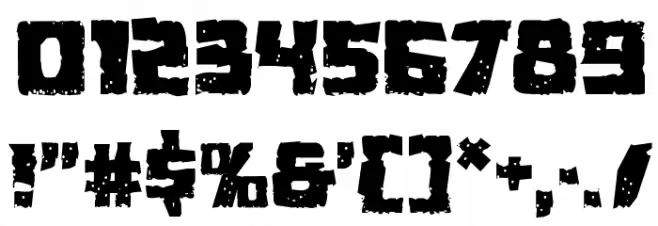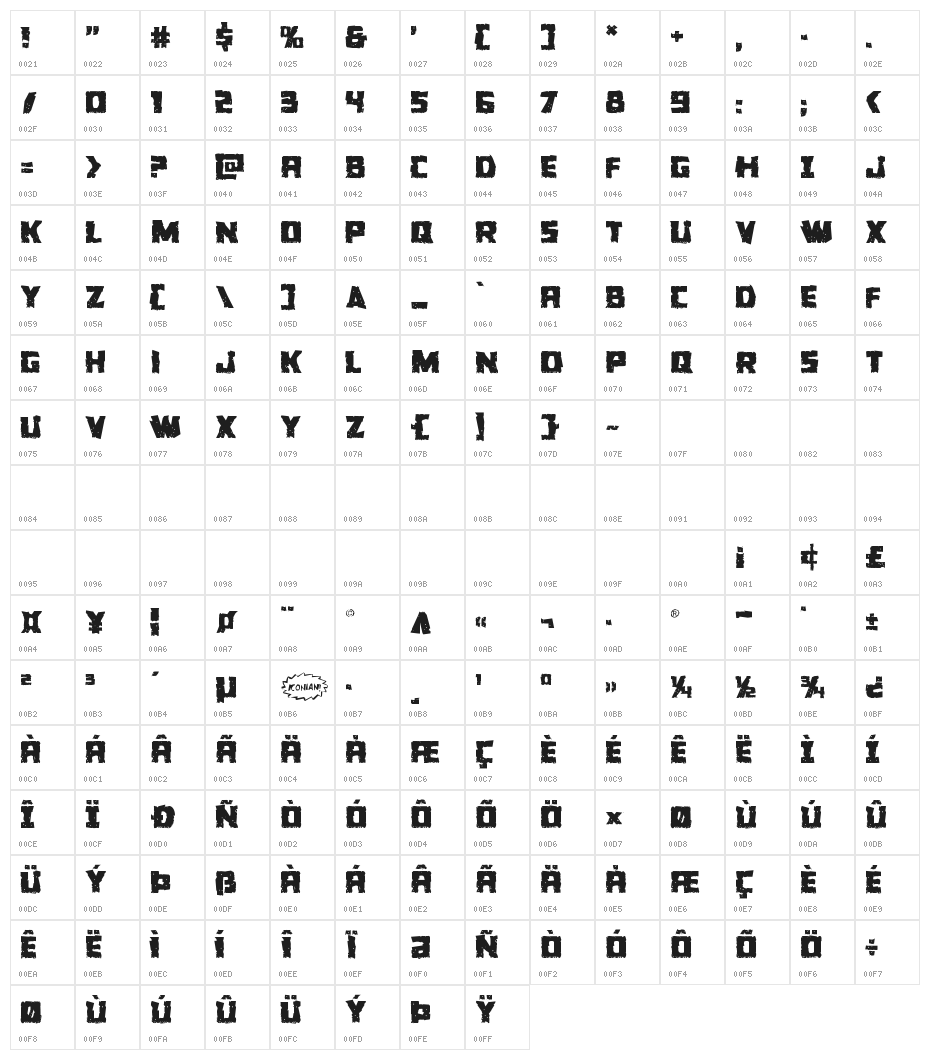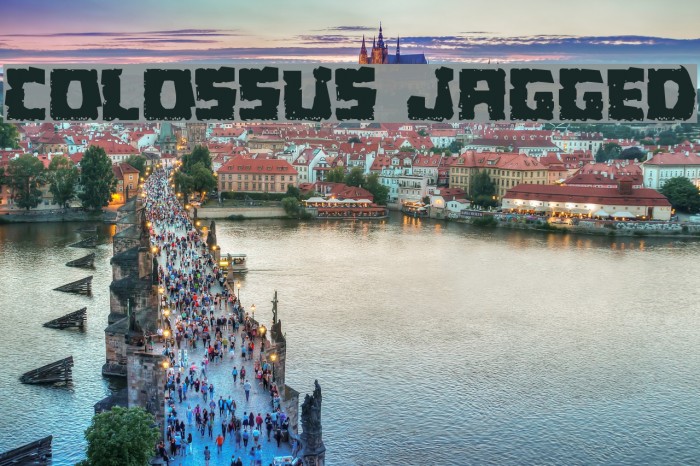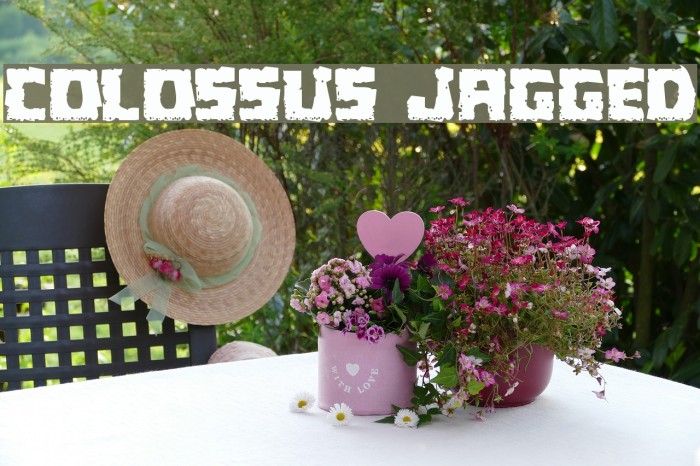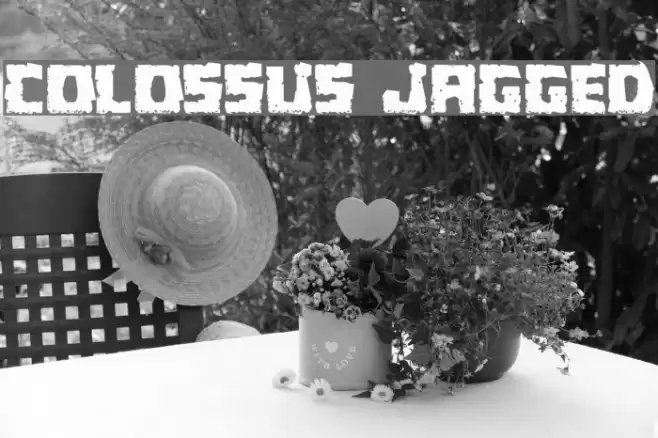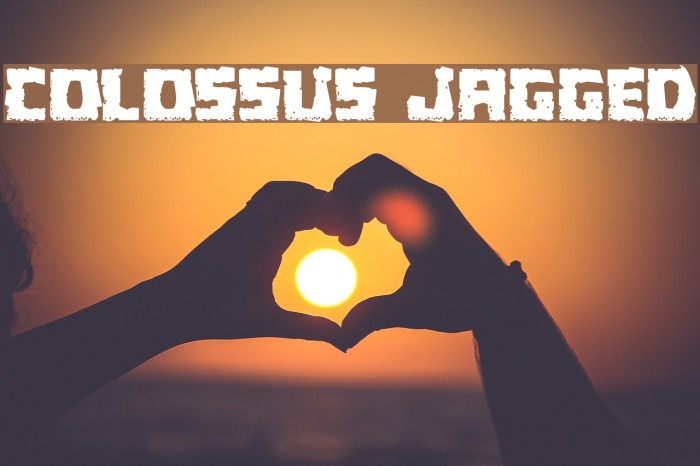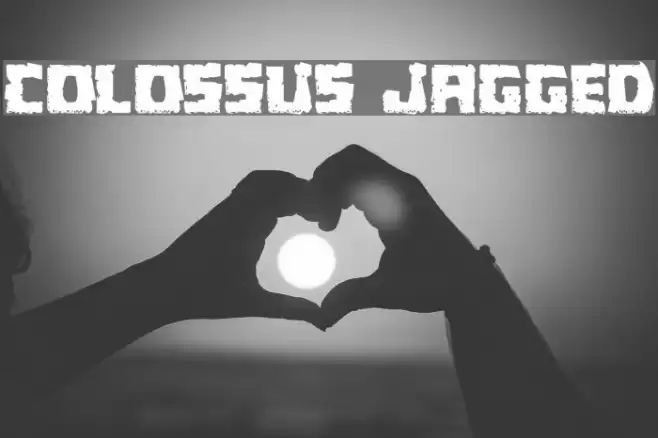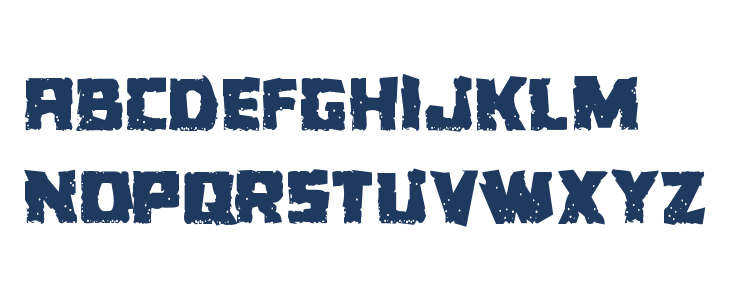
Colossus Jagged Font
Colossus Jagged Description
This font features a rugged, distressed appearance with jagged edges and a bold, impactful presence. The characters are heavily textured, giving them a worn, weathered look that suggests a sense of strength and durability. The uppercase and lowercase letters maintain a consistent style, with each character exhibiting unique irregularities that contribute to the overall chaotic aesthetic. The numbers and special characters follow the same design principles, ensuring a cohesive visual experience across all glyphs. This font is ideal for projects that require a bold, gritty statement.